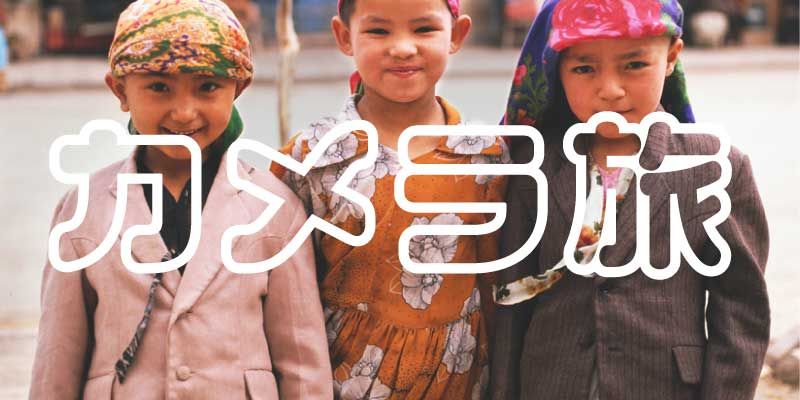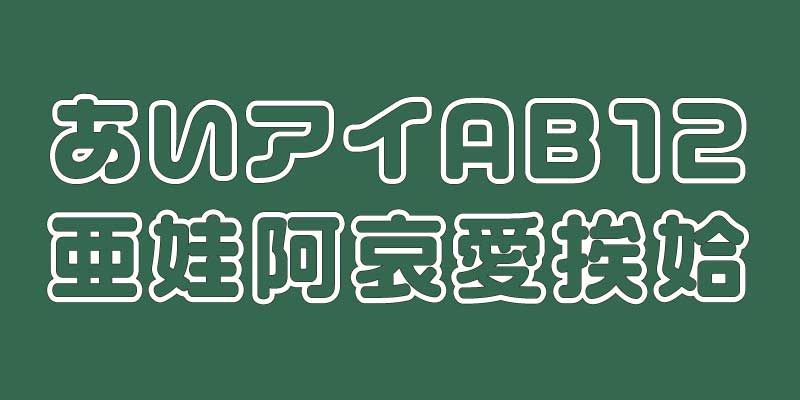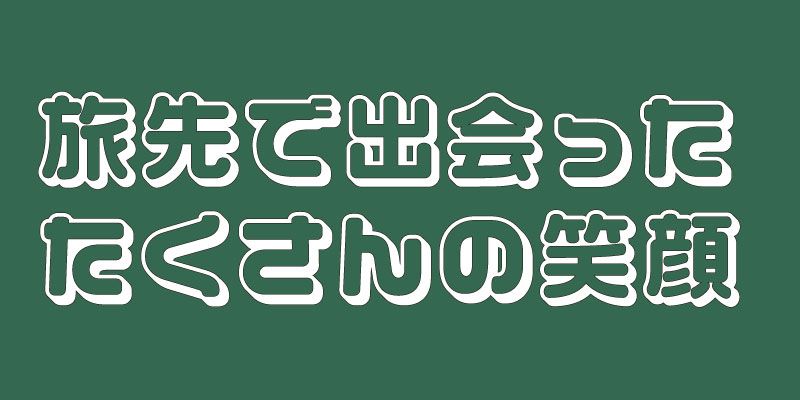
VDL-LogoMaruJr-pop is a decorative typeface family based on the design of VDL-LogoMaruJr. It is composed of VDL-LogoMaruJr-pop-FutoLine, whose glyph outlines are emphasized, and VDL-LogoMaruJr-pop-Shadow whose outlines are shaded, giving a three-dimensional effect.
As a font for display purposes, this font contains 9,354 glyphs (based on the Adobe-Japan1-3 Character Collection). This typeface enables typographic expressions with eye-catching effects and visual impact for a wide range of purposes, including production of editorial works, POP display designs, and images and video content.